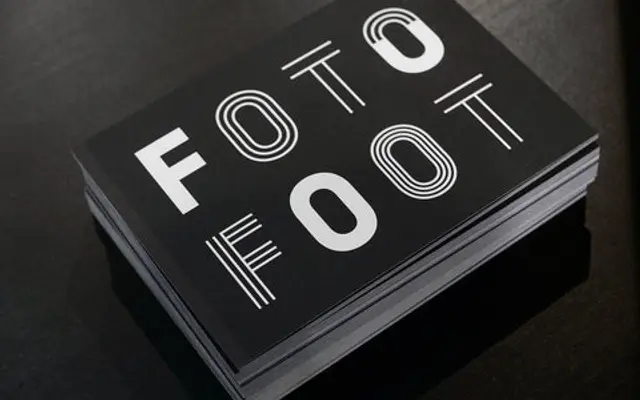
Parade
Lift Type · Romain Oudin · 2014
Ten all-caps typefaces sharing a single underlying structure, each carrying different surface treatments and patterns designed for mixing across posters, titling and brand identities.
Originally commissioned for the Design Parade 8 festival branding at Villa Noailles in 2013, Romain Oudin's Parade takes one drawn skeleton and runs it through ten stylistically distinct treatments, from plain geometric cuts to patterned and textured variants. The all-caps family is built explicitly for combination, allowing designers to layer or alternate styles within a single layout to produce a coherent but varied visual rhythm. With 598 glyphs per style and broad Latin language support, it sits comfortably in poster, editorial and identity work where decorative display type is called for.
A collection of ten stylistically distinct all-caps typefaces sharing the same underlying structure, designed for titling and poster work with decorative pattern and style variations that place it firmly in the display category.